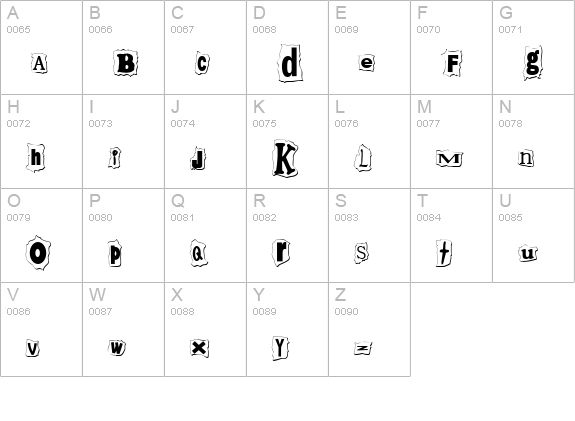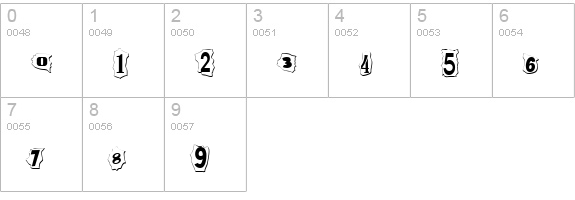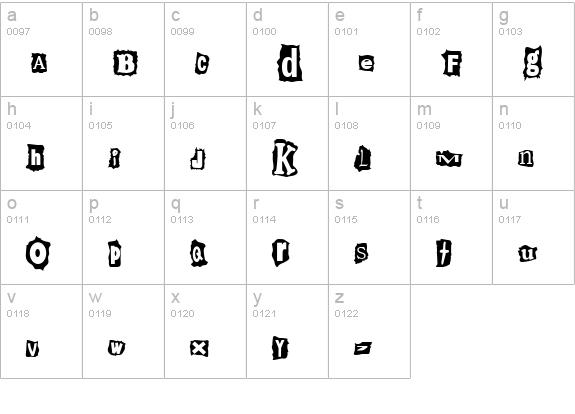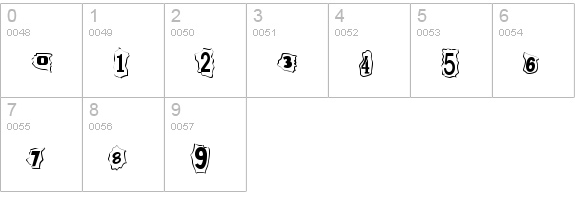
CK Ransom Font Details
Introducing CK Ransom font, a captivating typeface that exudes a sense of mystery and intrigue. With its bold and edgy design, CK Ransom is perfect for making a statement in your creative projects. This font features unique, ransom-style lettering that adds a touch of drama to any design. What's even better is that CK Ransom is available for free download at FontsMarket.com. So, whether you're working on a poster, logo, or any other design project, you can easily access this eye-catching font without any cost. Embrace the boldness of CK Ransom and let your creativity shine with this captivating typeface.